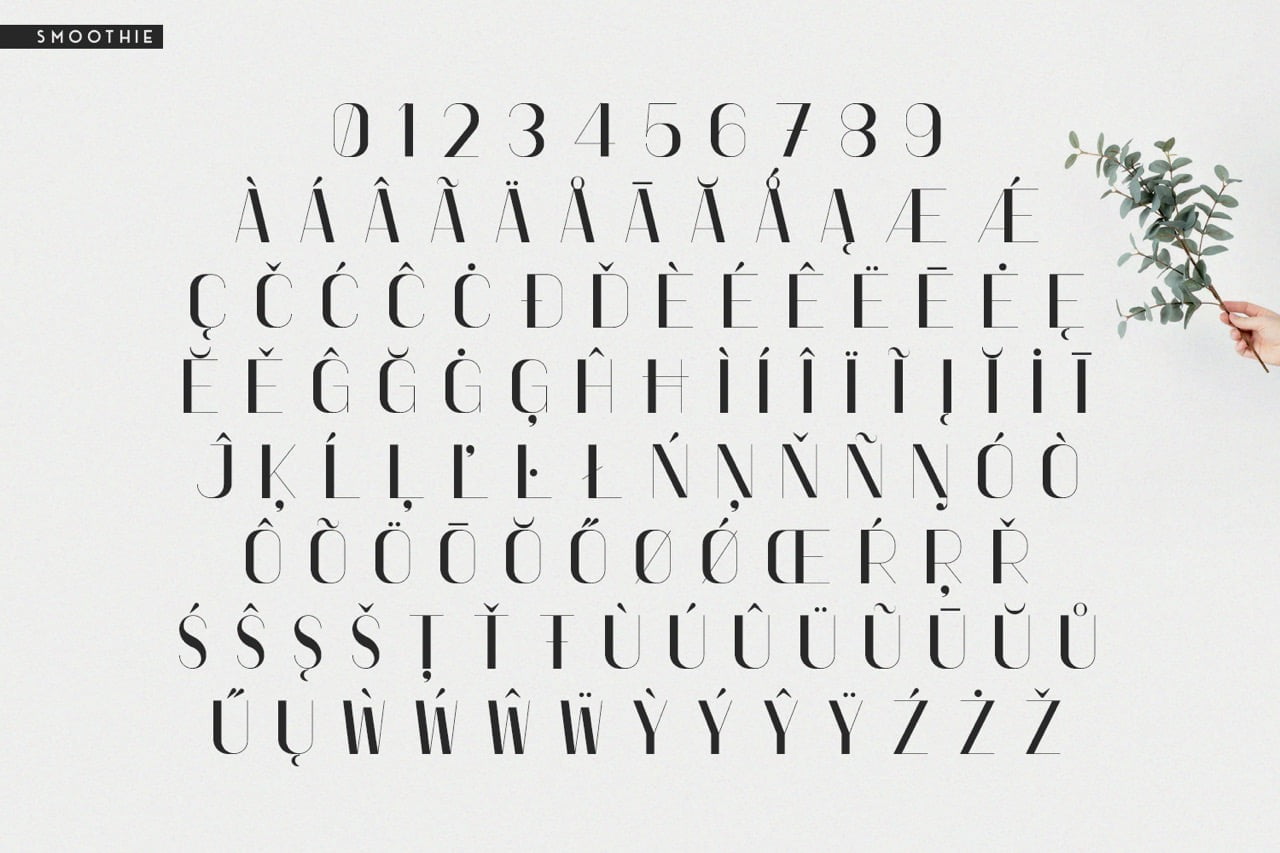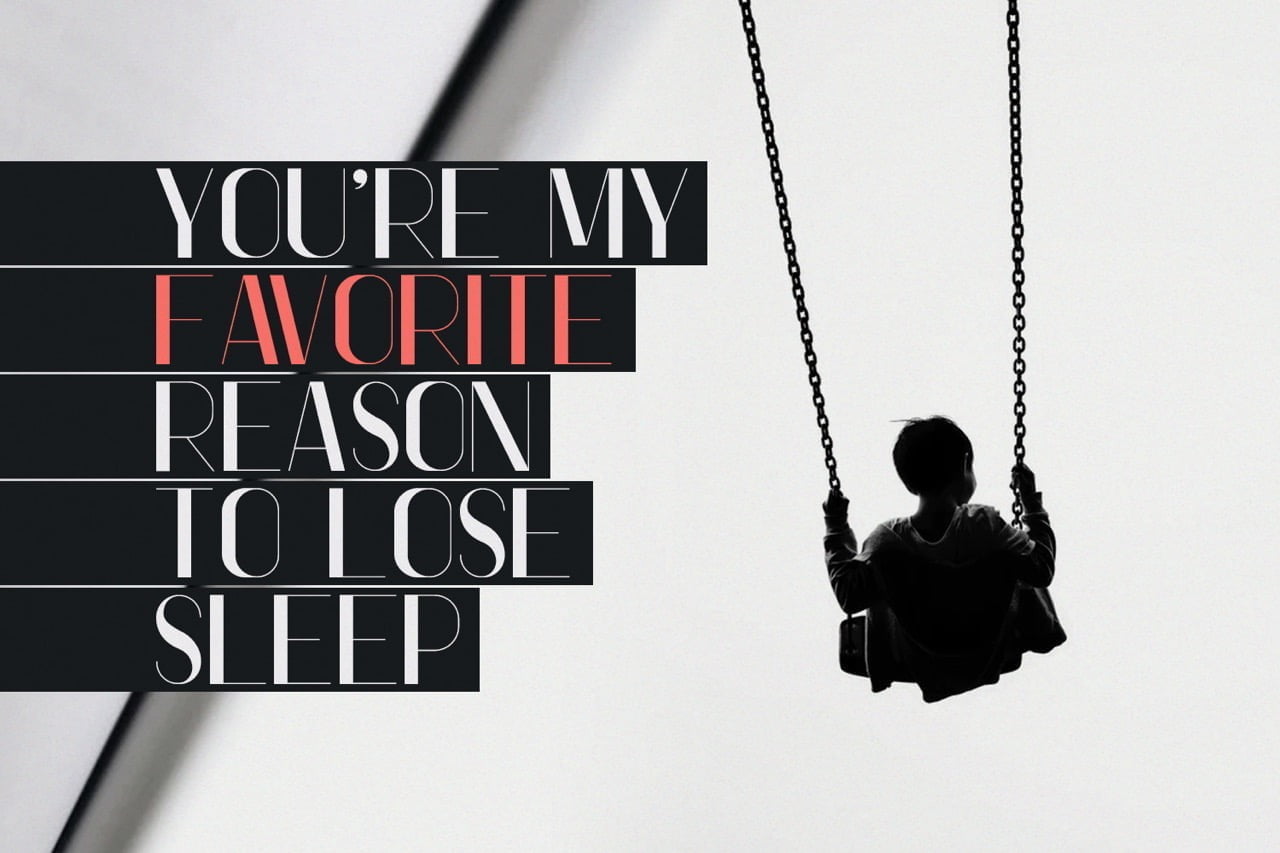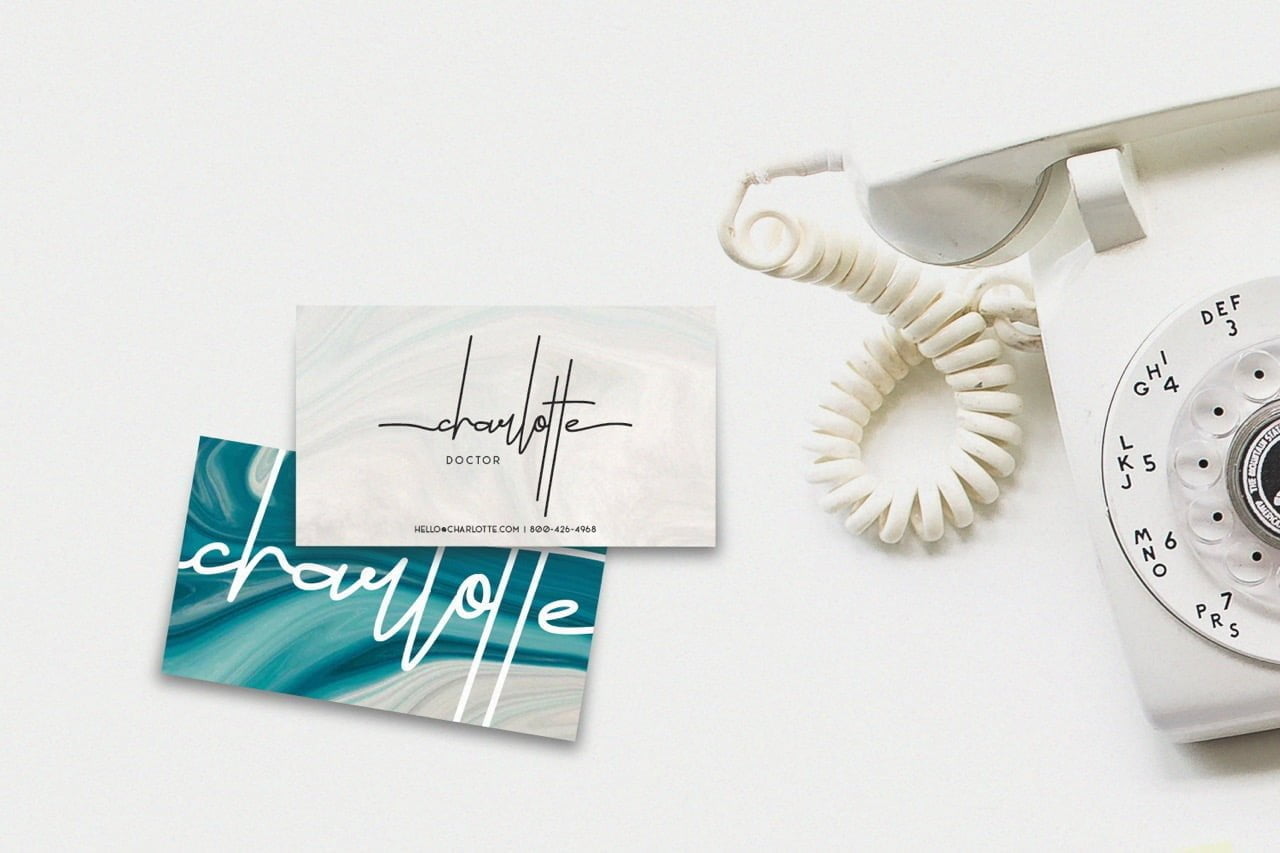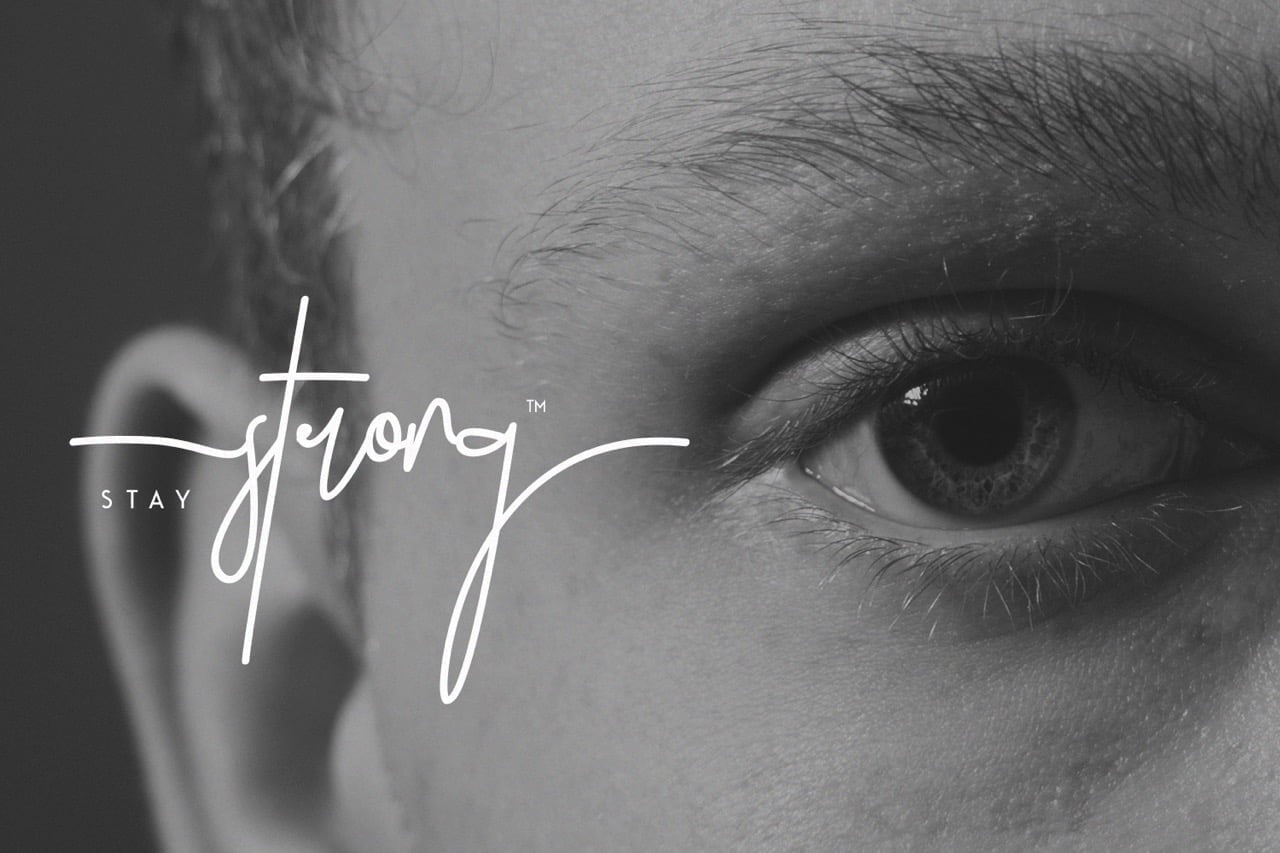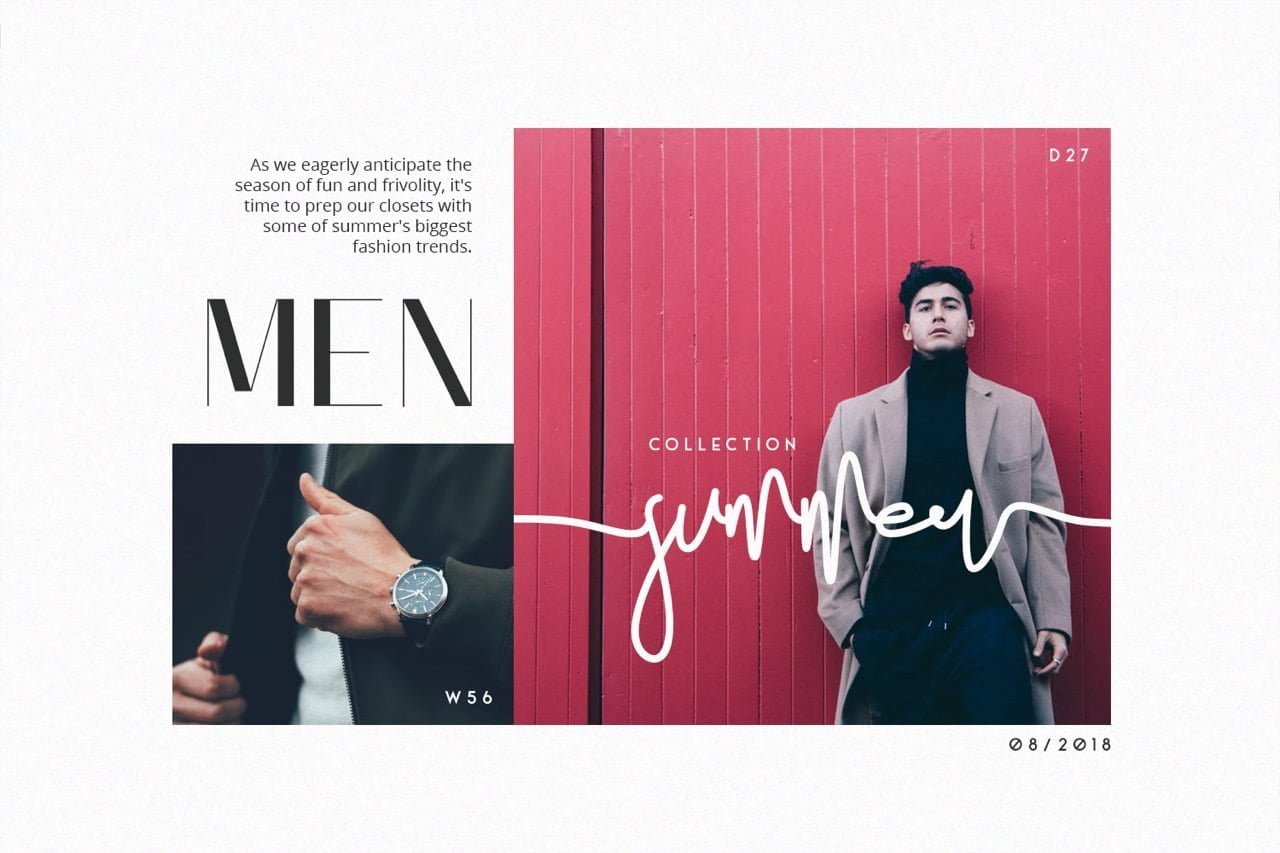
The Smoothie font is a classy, contemporary pair of script and sans-serif fonts. A mix between print and hand lettering, its offers beautiful typographic harmony for a diversity of design projects, headlines, branding visual identity and posters.
- 2 Styles (Sans Serif and Script)
Smoothie Font Duo